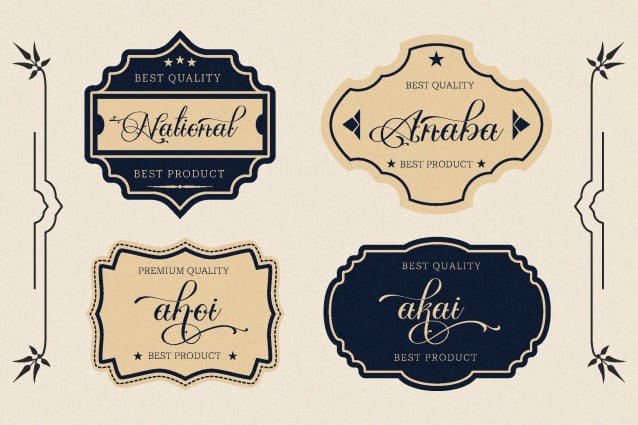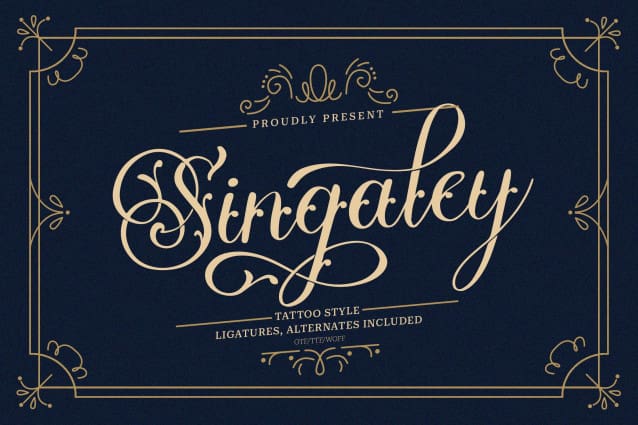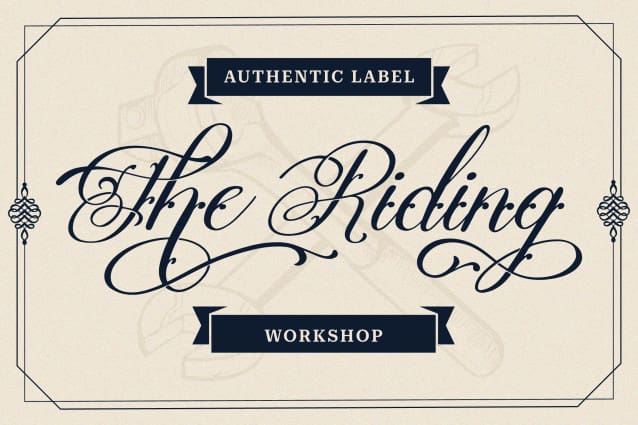
Singaley Tattoo Font
Singaley Tattoo Font, from Denustudios, suitable for any projects such as: logos, branding projects, homeware designs, product packaging, mugs, quotes, posters, shopping bags, t-shirts, book covers, name card, invitation cards, greeting cards, label, photography, watermark, special events, and all your other lovely projects that need a elegant tattoo style taste.